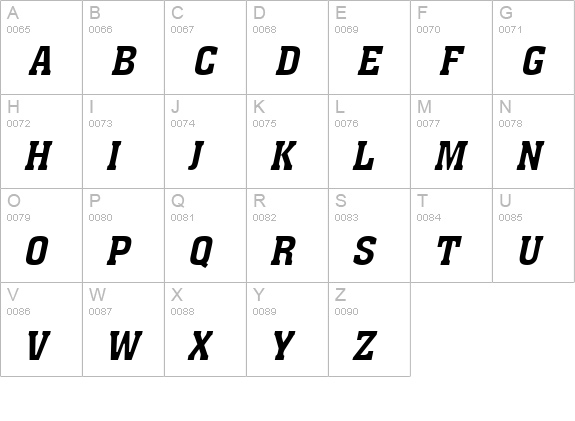
Ache Italic Font Details
Ache Italic is a distinctive, italic variant in the Ache typeface family \xE2\x80\x94 well suited to design and typography projects.
Ache Italic font is a stunning and elegant typeface that exudes sophistication and modernity. Its sleek and stylish design makes it perfect for a wide range of projects, from branding to editorial design. The italicized characters add a unique touch, making your text stand out with a touch of flair. Best of all, Ache Italic font is available for free download at FontsMarket.com. This means you can easily add this beautiful typeface to your collection without any cost. Don't miss out on the opportunity to enhance your designs with the beauty of Ache Italic font - download it today and elevate your projects to the next level!